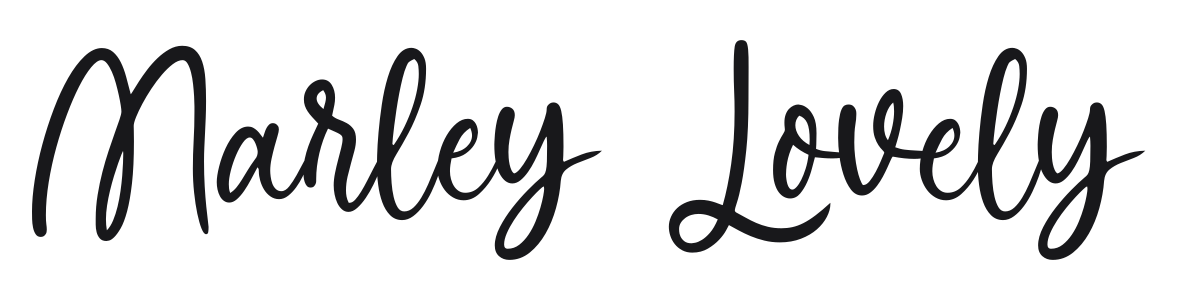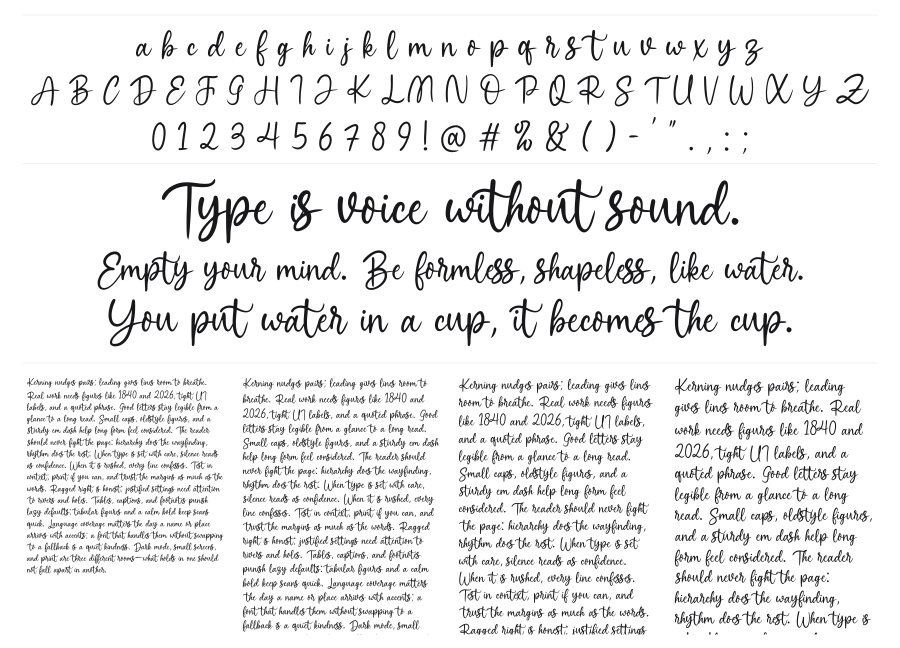
Marley Lovely
Marley Lovely is a casual brush script with flowing connected strokes and a naturally bouncy rhythm. The moderate stroke contrast and generous loops give it a hand-lettered warmth that feels personal without being precious. It works well at large sizes for logos, packaging, and social media graphics where a friendly, romantic tone is needed.